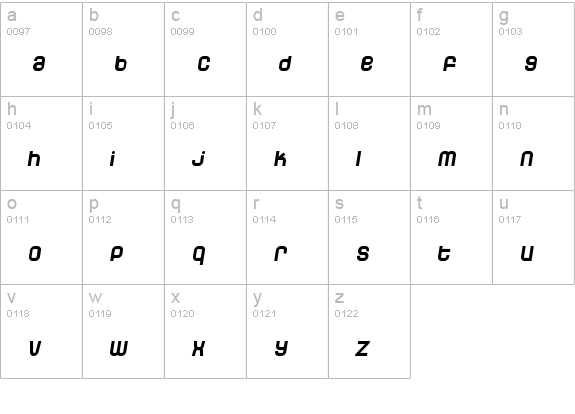
Dunebug 45MPH Font Details
Introducing the breathtaking Dunebug 45MPH font, a mesmerizing typeface that encapsulates speed, elegance, and modernity. With its sleek lines and dynamic curves, this font exudes a sense of movement and energy, making it perfect for projects that require a touch of excitement and sophistication. Whether you're designing a sports magazine cover, creating a sleek logo, or crafting a dynamic social media post, Dunebug 45MPH will make your text stand out with its unique charm. The best part? Dunebug 45MPH font is available for free download at FontsMarket.com, allowing you to add this stunning typeface to your design arsenal without breaking the bank. Don't miss out on the opportunity to elevate your projects with the dynamic flair of Dunebug 45MPH - download it today and let your creativity soar!